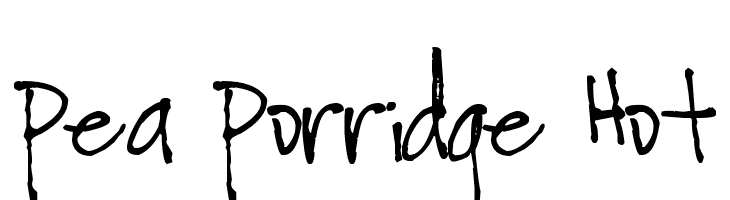
A playful, handwritten font with a whimsical and informal style.
A whimsical, doodle-like handwritten font with playful embellishments.
A playful, casual handwritten font with a lively and informal style.
A playful handwritten font with a casual, flowing style.
A playful, handwritten font with a casual and whimsical style.
A playful, casual handwritten font with bold, expressive strokes.
A playful, casual handwritten font with a lively and informal style.
A playful, handwritten font with a casual and whimsical style.
A playful, handwritten font with a whimsical and casual style.
A playful, casual handwritten font with an informal and personal style.